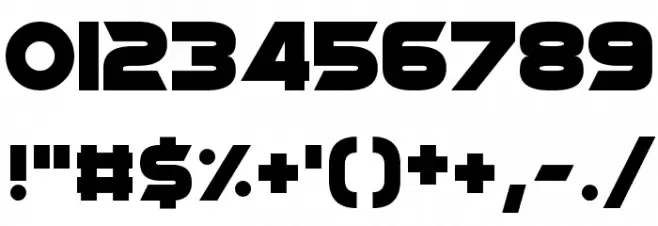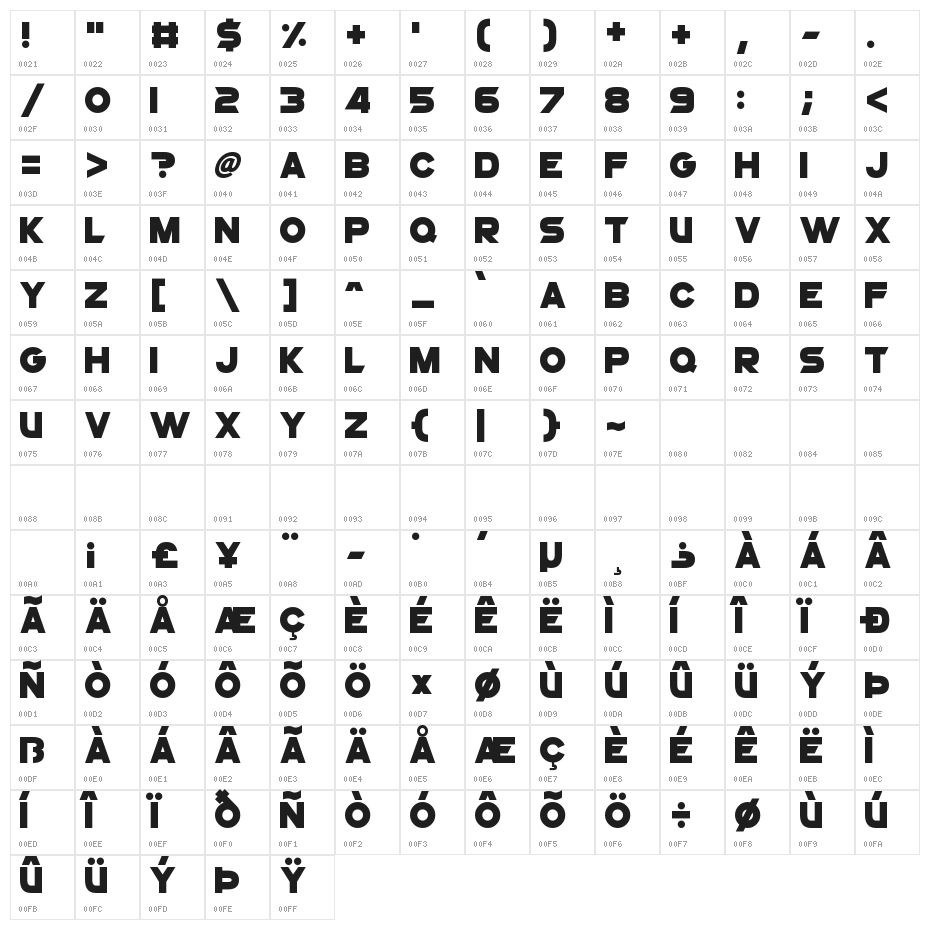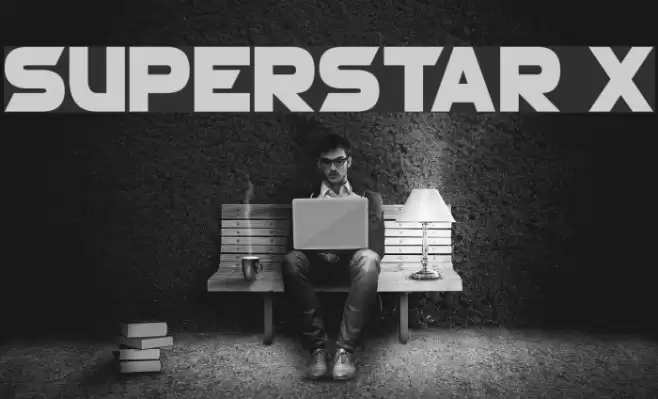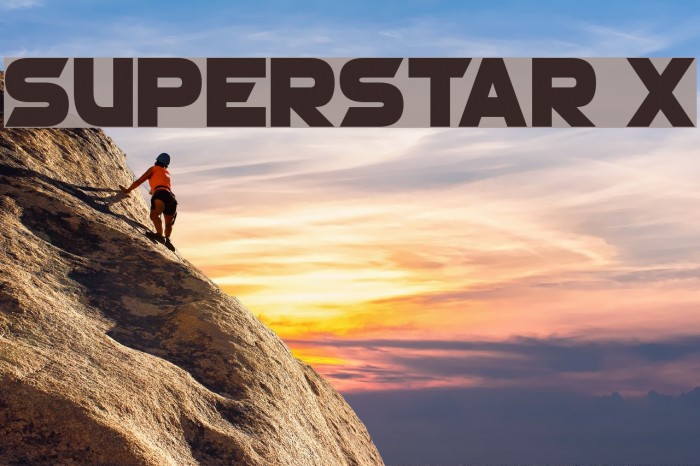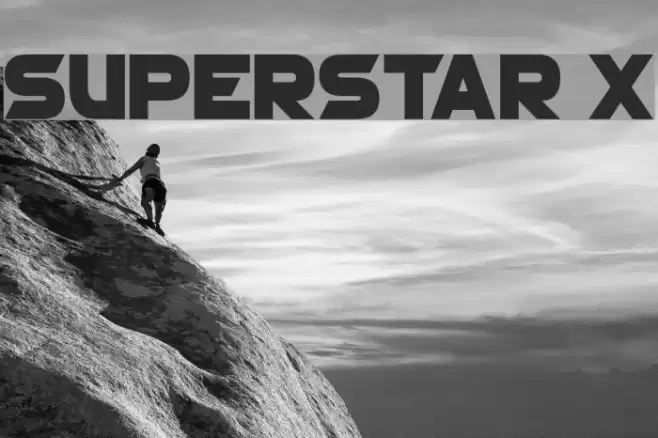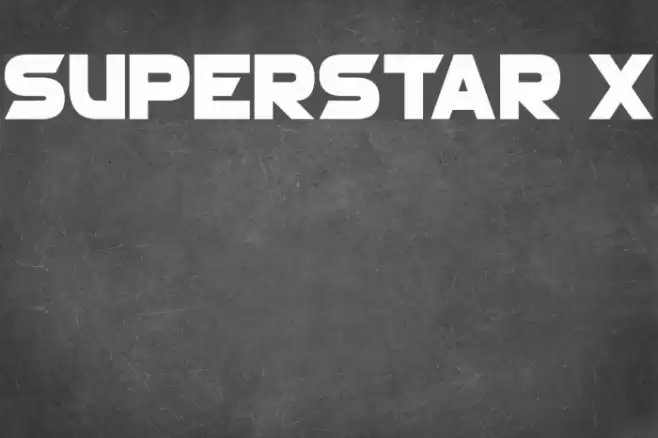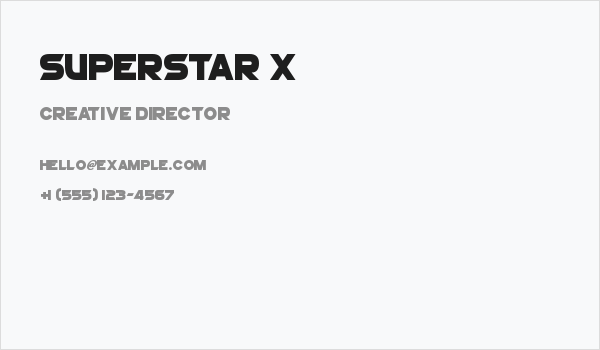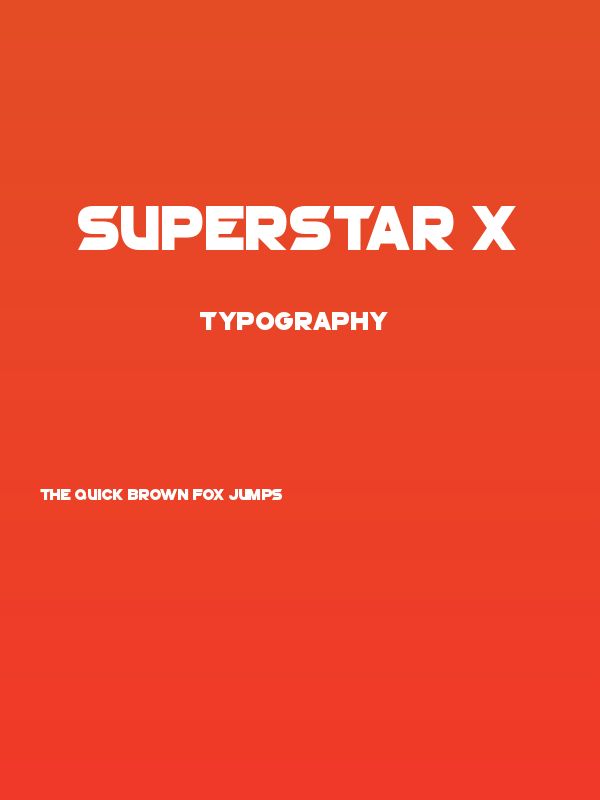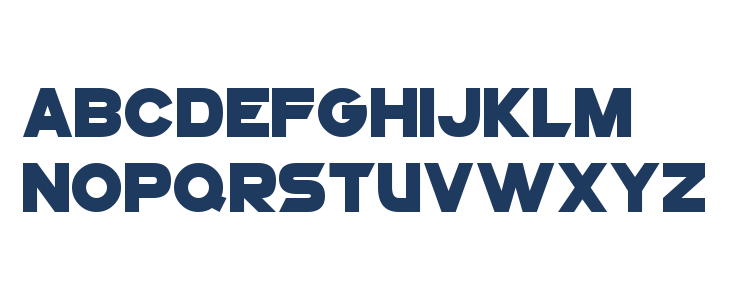
Superstar X Font
Superstar X Description
This font features bold, geometric letterforms with a strong presence. The characters are wide and have a uniform stroke width, giving them a solid and impactful appearance. The design is modern and slightly futuristic, with sharp angles and clean lines that create a sense of stability and strength. The uppercase letters are particularly striking, with a consistent height and width that make them ideal for headlines or titles. The numbers and special characters maintain the same bold style, ensuring a cohesive look across all text elements.